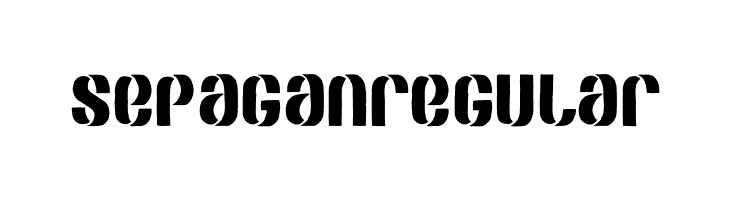
A bold, decorative font with cityscape silhouettes in each character.
( Fonts by Chequered Ink - chequered.ink - Personal-use only. For commercial use please contact owner. )
A bold, modern font with a geometric and uniform design.
A modern, geometric font with bold, angular characters.
A bold, italic, and geometric font with a modern, dynamic style.
A bold, geometric font with a futuristic and modern aesthetic.
A bold, geometric font with a modern, industrial style.
A bold, geometric font with a three-dimensional, modern design.
A bold, geometric font with a segmented, filled design.
( Fonts by Perspectype Studio )
A playful, handwritten-style font with smooth curves and consistent strokes.
( Fonts by Andi Imam Rosady - Personal-use only. For commercial use please contact owner. )
A playful, casual handwritten font with flowing, whimsical strokes.
( Fonts by Andrean Prabowo - Personal-use only. For commercial use please contact owner. )
A flowing, handwritten script font with elegant, connected characters.
( Fonts by Bonjour Type - Rachma - Personal-use only. For commercial use please contact owner. )
A lively and elegant script font with fluid, dynamic strokes.
( Fonts by Colative Studio - Personal-use only. For commercial use please contact owner. )
A flowing, elegant script font with a handwritten appearance.